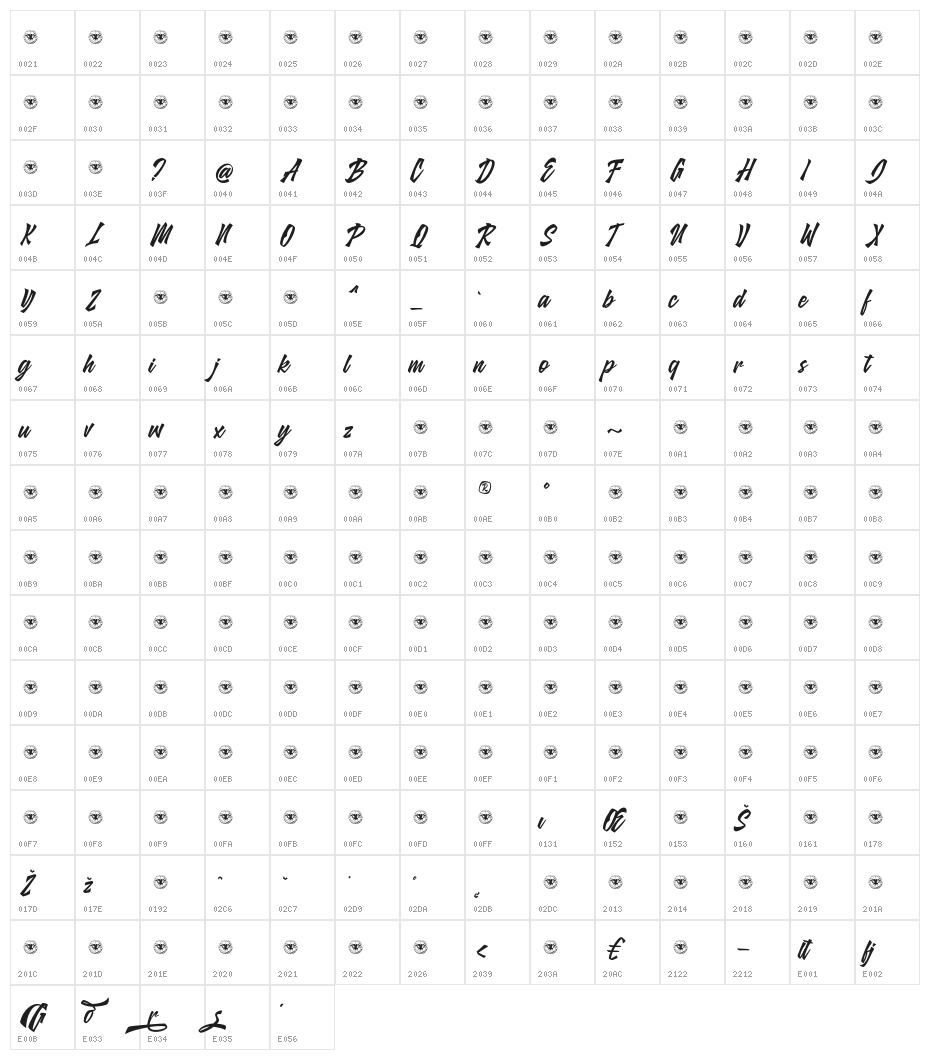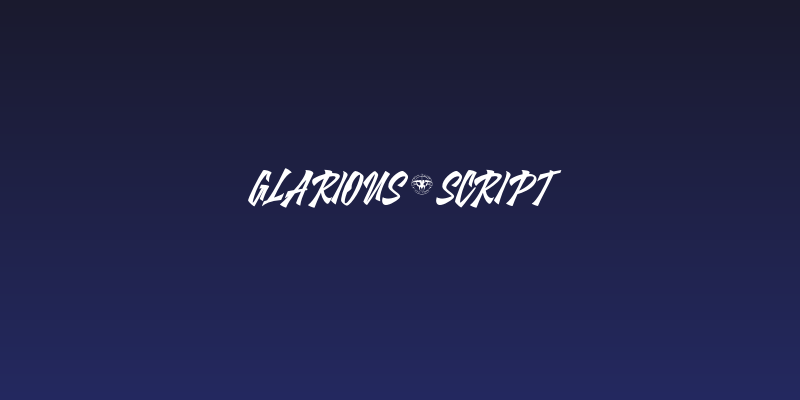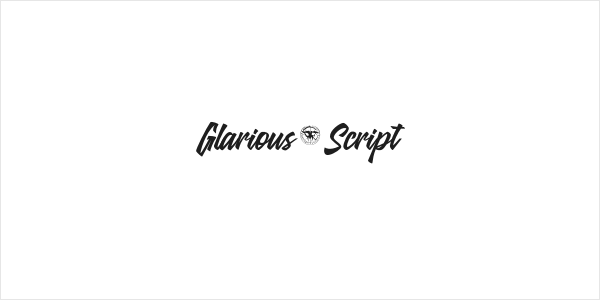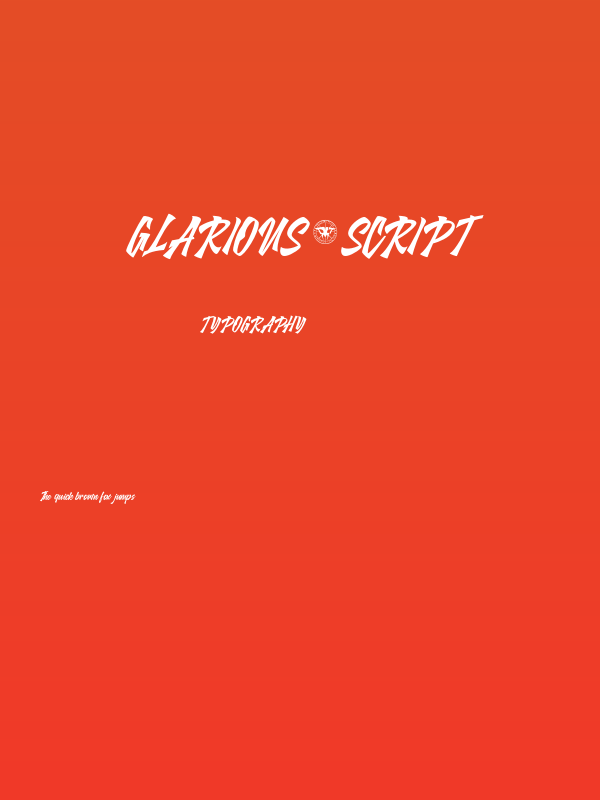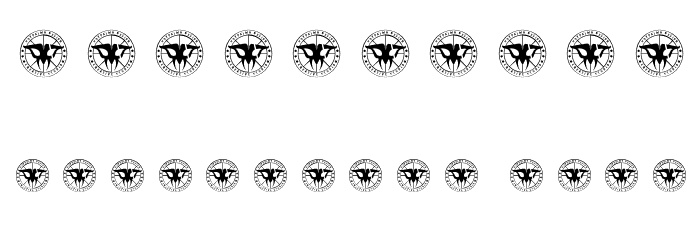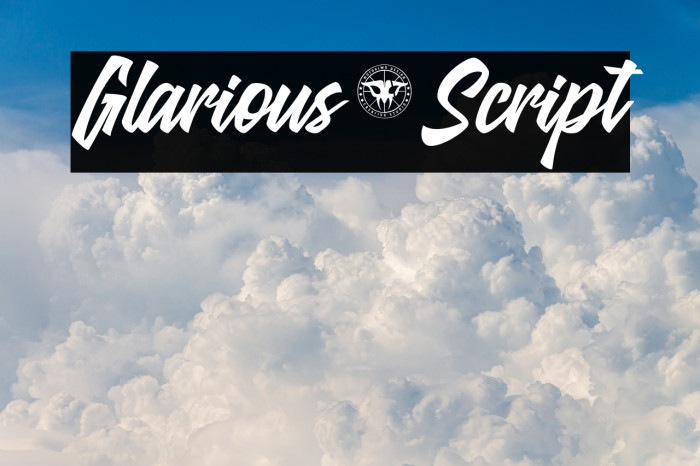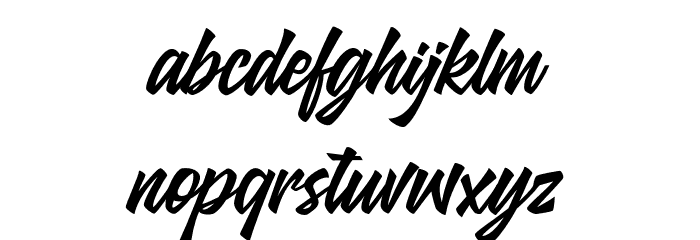
Glarious-Script Font
Glarious-Script Description
This script font features a bold and dynamic style with a strong presence. The uppercase letters are characterized by sharp, angular strokes that convey a sense of movement and energy. The lowercase letters maintain a fluid and cursive appearance, complementing the uppercase with their smooth curves. This font is designed to stand out, making it ideal for attention-grabbing headlines or creative projects. The consistent stroke width throughout the characters provides a uniform look, while the slight slant adds to its expressive nature. The font's unique style makes it suitable for a variety of design applications, from branding to artistic endeavors.
| Proposed Projects | Ideal for branding, logos, headlines, and creative design projects. |